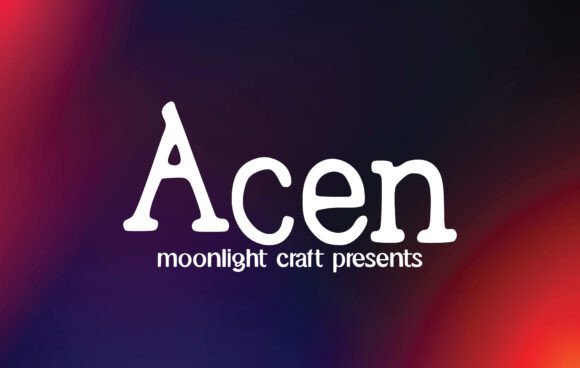
Acen Font Review for Handmade Labels and Packaging
There is a specific moment in every product design session where the layout feels functional but lacks soul, which is exactly why testing the Acen font on my latest batch of soy candle labels felt like such a revelation. As makers and small business owners, we often scroll through hundreds of typefaces searching for that perfect balance between artisanal charm and professional clarity, and this particular slab serif typeface immediately stood out during my mockup process. When I applied Acen to a 3x4 oval label for a lavender and sage collection, the sturdy serifs provided the necessary weight to anchor the design without overpowering the delicate botanical illustrations I had hand-drawn. This font is designed to be a true favorite and it has the potential to take your creative ideas to the highest level, specifically because it understands the unique constraints of physical product packaging where ink spread and paper texture matter just as much as digital aesthetics.
Acen for Candle Labels and Product Packaging Legibility
When evaluating Fonts for commercial handmade goods, readability at small scales is non-negotiable, and Acen proves itself exceptionally capable in this high-stakes environment. During my test print on matte vinyl sticker paper, I found that the letterforms maintained their integrity even when scaled down to 8pt for ingredient lists and safety warnings, though it truly shines as a primary title or scent name. The slab serif structure offers a confident, grounded appearance that communicates quality and stability, which is essential for building trust with customers browsing a market stall or an Etsy listing. Unlike thinner decorative scripts that can disappear against textured cardstock or become illegible when cut from dark vinyl, Acen’s robust strokes hold their own against various background materials. I specifically tested this on uncoated kraft paper tags for gift packaging, and the font’s inherent warmth complemented the natural fiber texture beautifully, creating a cohesive brand identity that felt intentional rather than accidental. For fellow crafters designing soap boxes, jam jar labels, or boutique shopping bags, this typeface provides that crucial intersection of vintage appeal and modern legibility that elevates perceived product value instantly.
Using Acen for Wedding Invitations and Stationery Suites
Beyond product packaging, Acen serves as a versatile display font for wedding stationery and formal event invitations where tone and atmosphere are paramount. While reviewing this typeface for a mockup bridal suite, I discovered that its balanced proportions make it an excellent choice for couple names and venue details on welcome signs, seating charts, and invitation cards. The personality of Acen leans towards refined rustic or modern farmhouse, making it ideal for couples who want elegance without stuffiness. When pairing this slab serif with other typography, I found it harmonizes beautifully with a clean, minimalist sans serif for body text or a flowing handwritten script for accent phrases like "celebrate" or "with love." This versatility allows stationery designers to create entire suites using Acen as the anchor display face while maintaining visual hierarchy. However, a practical note for Cricut and Silhouette users: while Acen cuts cleanly on cardstock and acetate at standard sizes, extremely intricate ligatures or tight kerning may require adjustment if you are cutting individual letters for large-scale foam board signs. Always perform a test cut on your specific material, as the sturdy serifs that look so beautiful in print can sometimes bridge if the blade depth isn't calibrated correctly for thicker media.
Acen in Digital Printables and Planner Design Layouts
For creators selling digital downloads, printable wall art, or planner inserts, Acen offers a distinct advantage because it renders crisply on screens and home printers alike. This font is legible and looks great as a title or body text in digital templates, which I verified while designing a set of monthly budget tracker printables and inspirational wall quotes. In the digital space, where users often zoom in to inspect file quality before purchasing, the clean vector lines of Acen prevent the pixelation or blurriness that can plague lower-quality free fonts. I particularly appreciated how well it works in editable Canva or Corjl templates; the character spacing is generous enough that end-users can easily modify text without letters colliding or looking cramped. For printable wall art sellers, Acen carries enough typographic weight to stand alone as a single-word statement piece, yet remains approachable enough for longer affirmations or bible verses. When designing planner dashboards or digital journal covers, this typeface helps establish clear section headers that guide the user’s eye without creating visual fatigue, a critical factor for functional stationery that gets daily use.